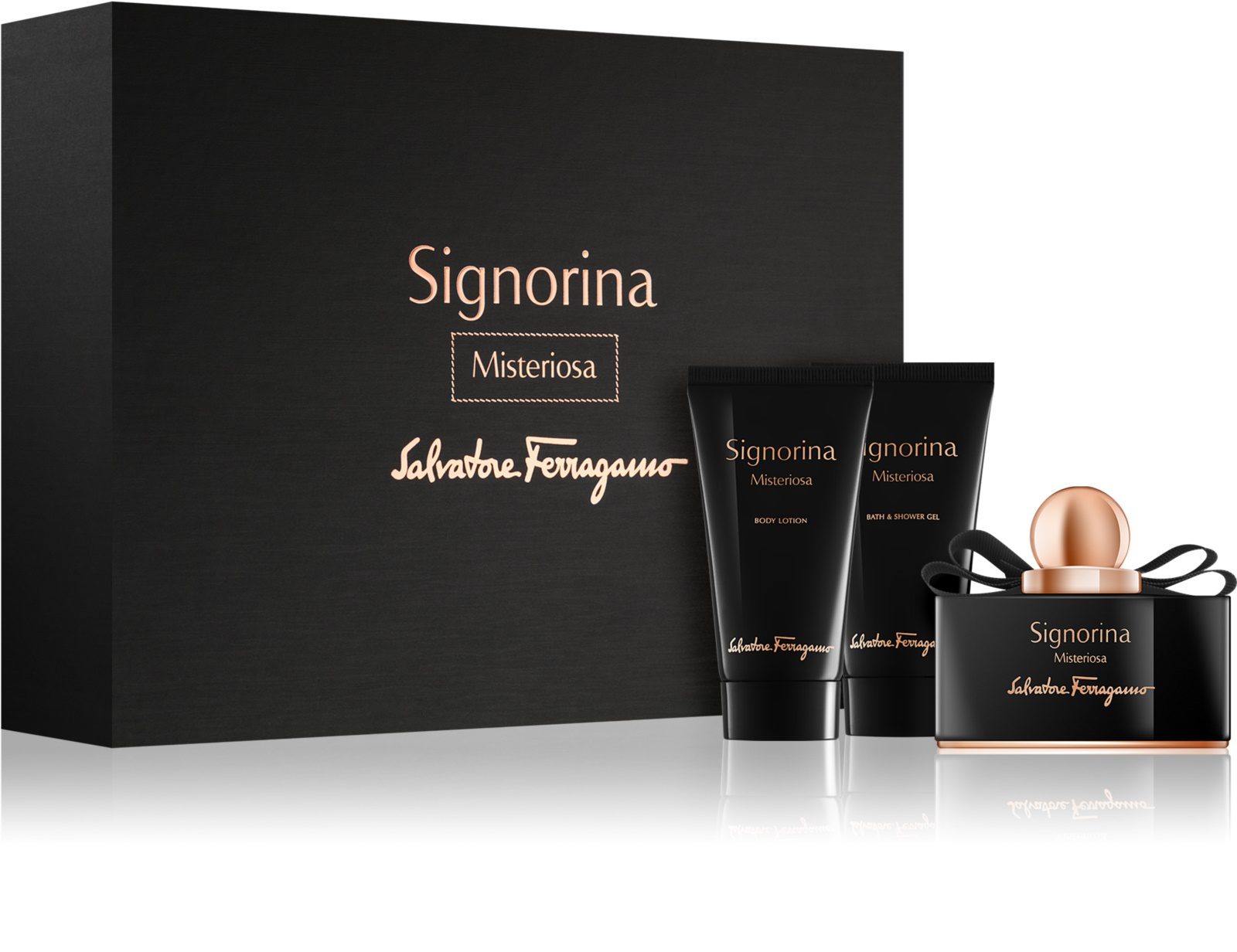
Accent Graphic was one of the earliest releases by G-Type, starting life in 1997 as the corporate font for a design company in London where I happened to work.
Accent Graphic
Accent Graphic was developed as the corporate font for a London design consultancy in 1997. The starting point was the word ‘accent’ in lower case.
Accent Graphic is essentially a sans typeface with the thick/thin contrast of a serif and is the only font family in the G-Type retail collection that was originally designed for a client.
Flared stems and graceful strokes make Accent Graphic a delicately beautiful typeface with broad appeal.
The font's stylish elegance and sophistication make it a good fit for branding use, as typified by Salvatore Ferragamo's deployment of Accent Graphic Light on their chic new Signorina fragrance line.
Luxury brands tend to use high contrast typefaces to convey the impression of opulence, elegance & style. Aspirational products that are reassuringly expensive need to adopt an air of sophistication.
Accent Graphic contains a basic Latin character set with proportional lining figures, ordinals and standard fi/fl ligatures.